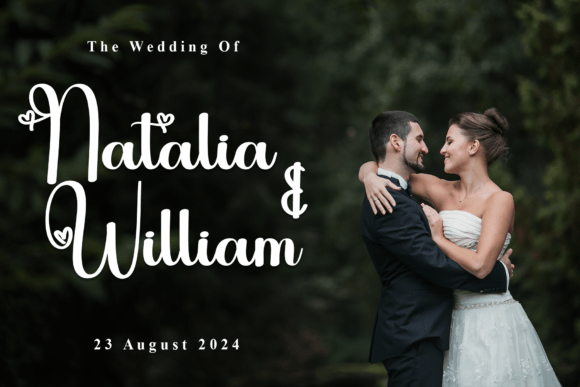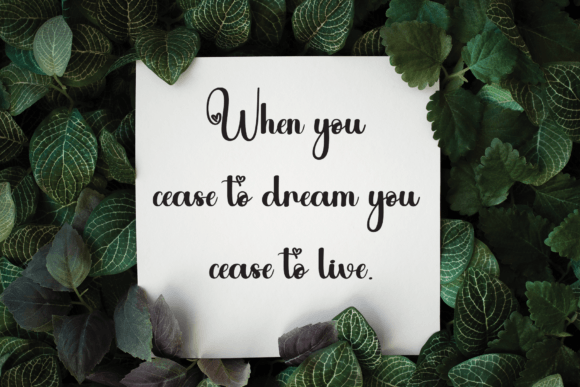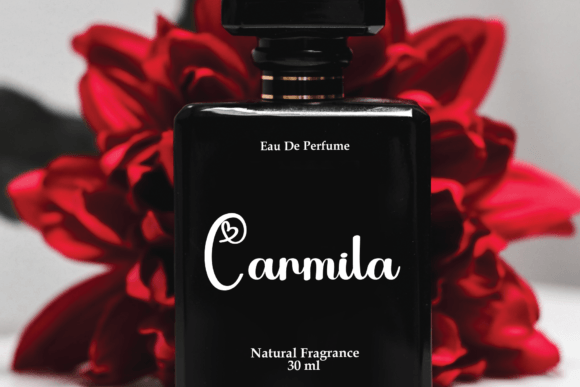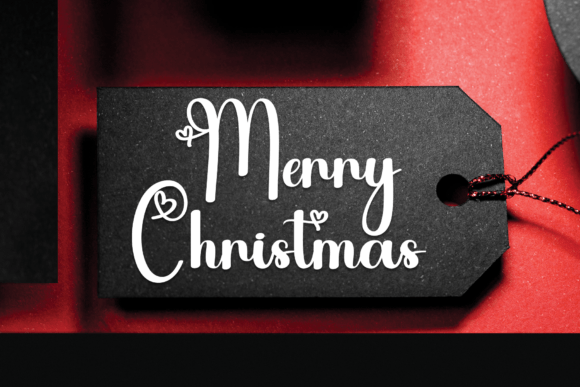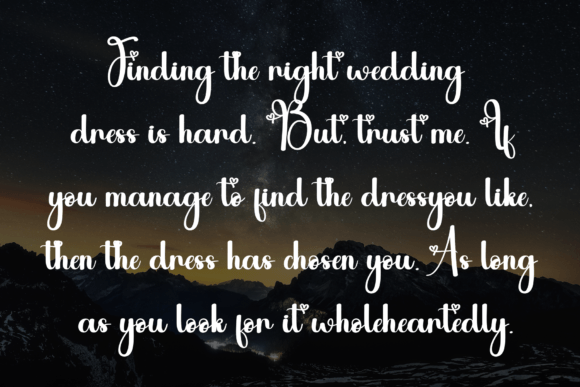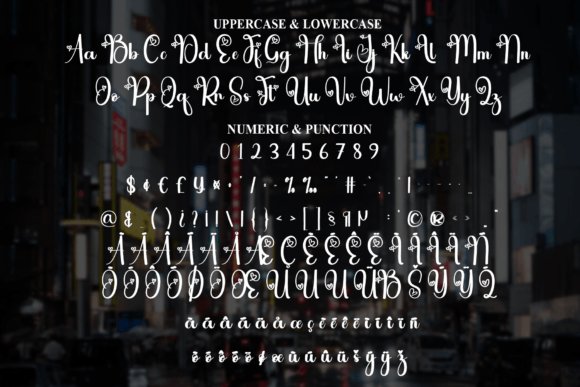
Introducing Citynight Font: Elevate Your Designs with Elegance and Charm
In the world of typography, a font can make or break a design. For designers and crafters looking to add a touch of sophistication and warmth to their projects, Citynight Font is an exceptional choice. This stylish handwritten script font is designed to exude elegance and charm, making it perfect for a variety of applications, from invitations and logos to branding and more.
The Beauty of Citynight Font
Citynight Font boasts flowing, graceful curves that give it a unique and captivating appearance. Its delicate strokes bring a sense of warmth and creativity to any design, making it an excellent choice for those looking to add a personal touch to their work. Whether you’re creating wedding invitations, designing a logo for a new business, or crafting a brand identity, Citynight Font is sure to impress.
One of the standout features of Citynight Font is its versatility. Its elegant and charming appearance makes it suitable for a wide range of design applications, including:
- Invitations: Add a touch of sophistication to wedding invitations, birthday party invites, and other special occasion announcements.
- Logos: Create a lasting impression with a custom logo that showcases your brand’s personality and style.
- Branding: Develop a cohesive brand identity that exudes elegance and charm, perfect for businesses in the luxury, fashion, or lifestyle industries.
- Stationery: Elevate your stationery designs, including business cards, letterheads, and envelopes, with a touch of sophistication.
Why Choose Citynight Font?
With so many fonts available, why choose Citynight Font? Here are just a few reasons why designers and crafters are falling in love with this beautiful script font:
- Elegance: Citynight Font exudes elegance and sophistication, making it perfect for high-end designs.
- Versatility: Its versatility makes it suitable for a wide range of design applications.
- Warmth: The font’s delicate strokes bring a sense of warmth and creativity to any design.
- Easy to Read: Despite its elegant appearance, Citynight Font is easy to read, making it perfect for body text and headlines.
Tips for Using Citynight Font
To get the most out of Citynight Font, here are a few tips to keep in mind:
- Pair with a Sans Serif Font: Pair Citynight Font with a sans serif font for a striking contrast that adds visual interest to your design.
- Use for Headlines and Titles: Citynight Font is perfect for headlines and titles, where its elegant appearance can shine.
- Experiment with Colors: Don’t be afraid to experiment with different colors and textures to add depth and interest to your design.
In conclusion, Citynight Font is a stylish and elegant handwritten script font that is sure to elevate your designs. Its flowing, graceful curves and delicate strokes bring a sense of warmth and creativity to any project, making it perfect for designers and crafters looking to add a touch of sophistication to their work. Whether you’re creating invitations, logos, or branding materials, Citynight Font is an excellent choice. So why wait? Download Citynight Font today and start creating stunning designs that exude elegance and charm.